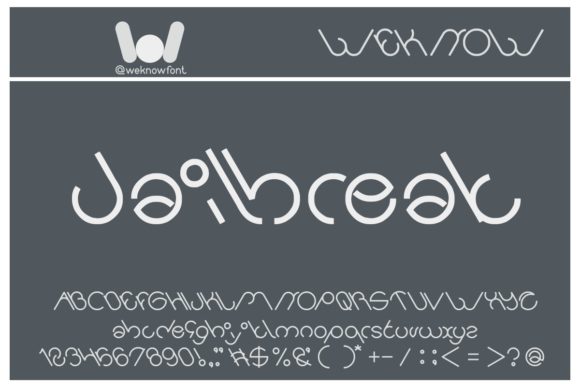
Unleash the Power of Jailbreak Font: Your Ultimate Companion for Research Posters
Journey into the realm of captivating typography with Jailbreak Font, a font family designed to ignite creativity and leave an unforgettable impact on your research posters. This display font exudes a sense of sophistication and style, making it the perfect choice for conveying research findings with clarity and impact.
With its striking and distinct character, Jailbreak transcends the boundaries of ordinary fonts. It's a font that commands attention and invites deeper exploration into the content it adorns. Its ability to transform ordinary text into captivating statements makes it an invaluable asset for crafting research posters that resonate with audiences.
Embrace Originality and Make a Statement:
In a sea of research posters, Jailbreak Font sets you apart. Its unique design adds an artistic flair that elevates your work above the mundane. Its ability to evoke emotions and convey messages effectively makes it an exceptional choice for captivating poster presentations.
Let Jailbreak Font be your secret weapon in creating research posters that leave a lasting impression. Its versatility knows no bounds, allowing you to tailor it to suit your research topic and style. From scientific and medical posters to historical and social science presentations, Jailbreak Font seamlessly adapts to convey your message with unwavering clarity.
Effortless Readability for Seamless Information Transfer:
Jailbreak Font understands the importance of effortless readability. Its carefully crafted letterforms ensure that your research findings are conveyed with utmost clarity and precision. Even in poster presentations with dense information, Jailbreak Font maintains its legibility, ensuring that your message is received loud and clear.
Welcome to the World of Typography Excellence:
Jailbreak Font is not just a font; it's an experience. It's a font that breathes life into your research posters, transforming them into dynamic and captivating works of art. Its ability to ignite curiosity and engage audiences is unparalleled, making it the ideal choice for creating research posters that truly shine.